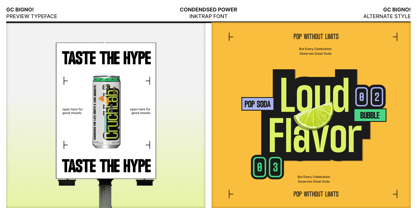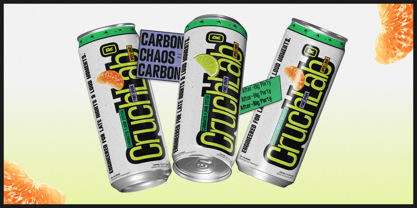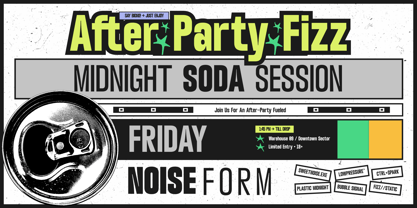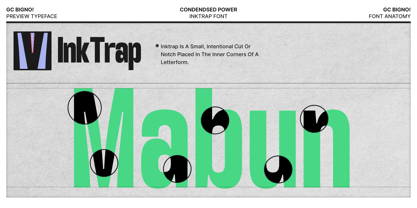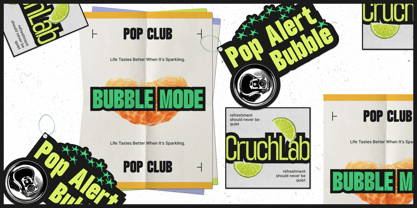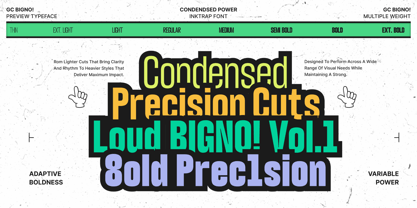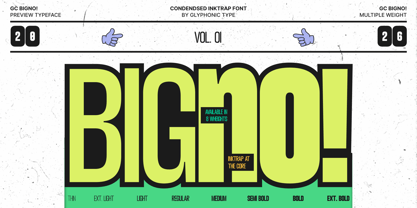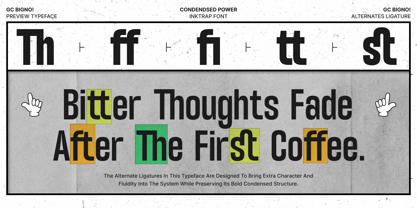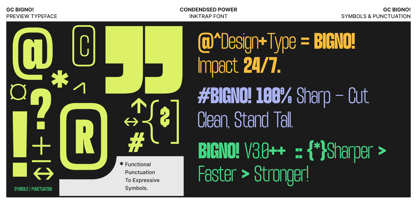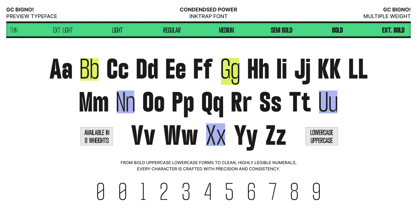
GC Bigno
La familia tipográfica GC Bigno fue diseñada por Muhammad Hafiizh Solana y publicada por Onyx Studio. GC Bigno contiene 8 estilos y opciones de paquete familiar. Más información sobre esta familia
GC Bigno – Condensed Inktrap is a bold condensed display typeface engineered to maximize impact while maintaining exceptional clarity. Built with modern inktrap detailing, compact proportions, and strong geometric construction, GC Bigno delivers a powerful typographic voice that feels contemporary, confident, and highly functional across large-scale visual communication.
Designed with deep inktrap cuts and a tightly condensed structure, GC Bigno enhances readability while creating a distinctive industrial aesthetic. Its bold vertical forms and optimized spacing allow headlines to occupy less space without sacrificing presence, making it an ideal choice for branding, posters, editorial layouts, advertising, packaging, and modern identity systems.
Every character is carefully crafted to balance visual density with clean precision. The inktrap architecture not only adds personality but also improves legibility at various sizes, giving GC Bigno a refined technical character that stands out in both print and digital environments.
Features :
* Modern Condensed Inktrap Typeface
* Bold Geometric Construction
* Distinctive Inktrap Details
* Compact & Space-Efficient Letterforms
* Strong Visual Presence
* Available in 8 Weights
* Perfect for Headlines & Editorial Design
* Suitable for Branding, Posters, Packaging & Advertising
* Multilingual Support (170+ Languages)
GC Bigno delivers maximum impact in minimal space — a modern condensed inktrap typeface crafted for bold headlines, sharp readability, and contemporary visual identity.